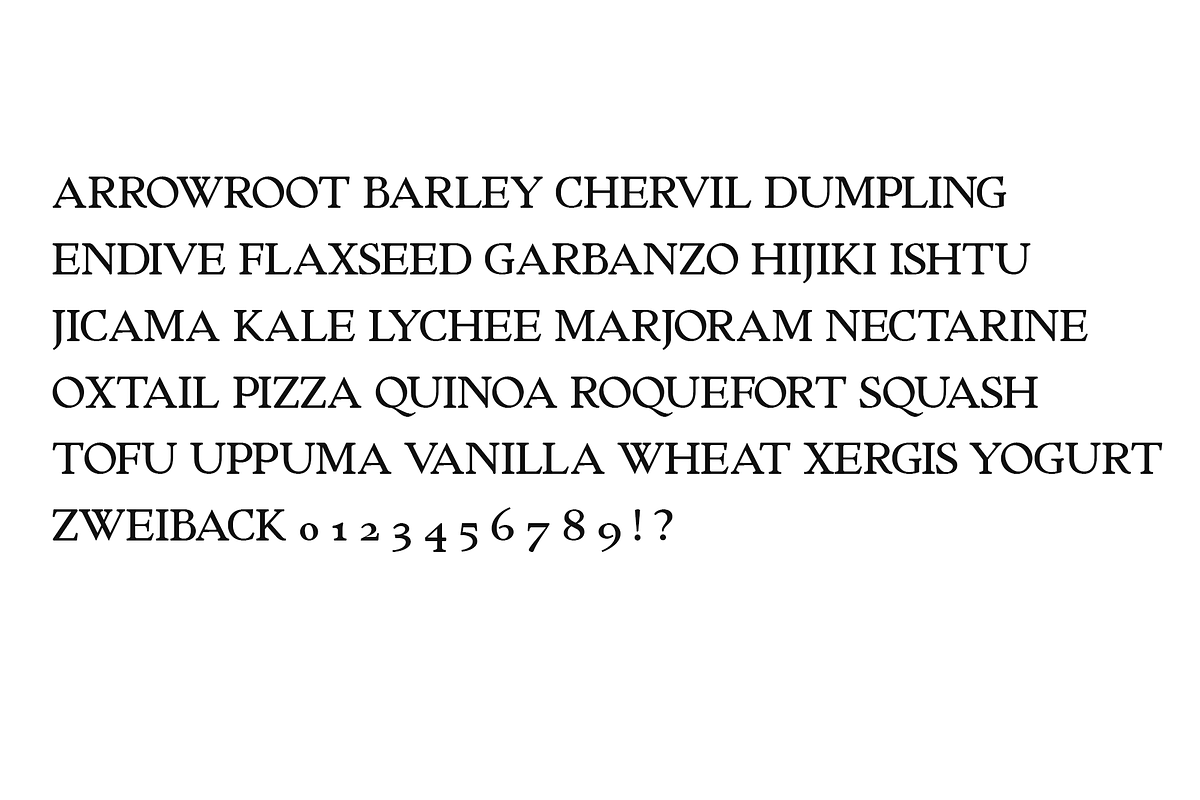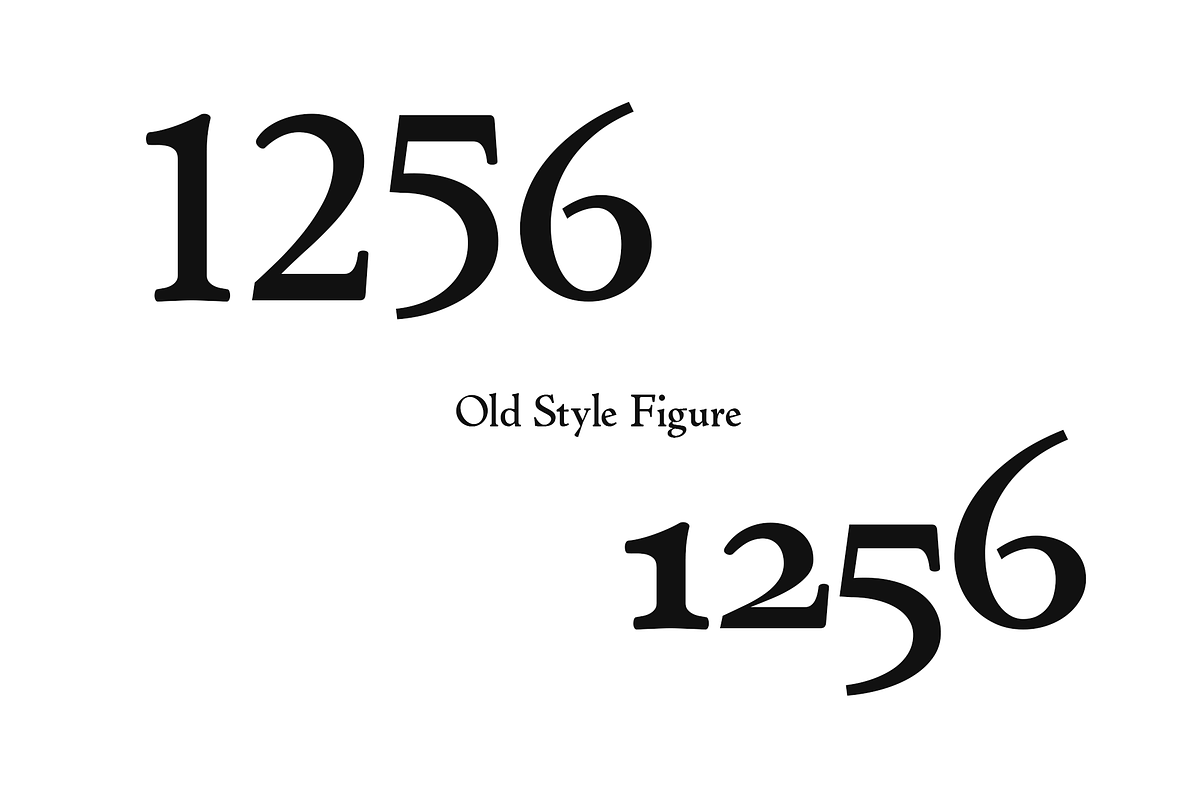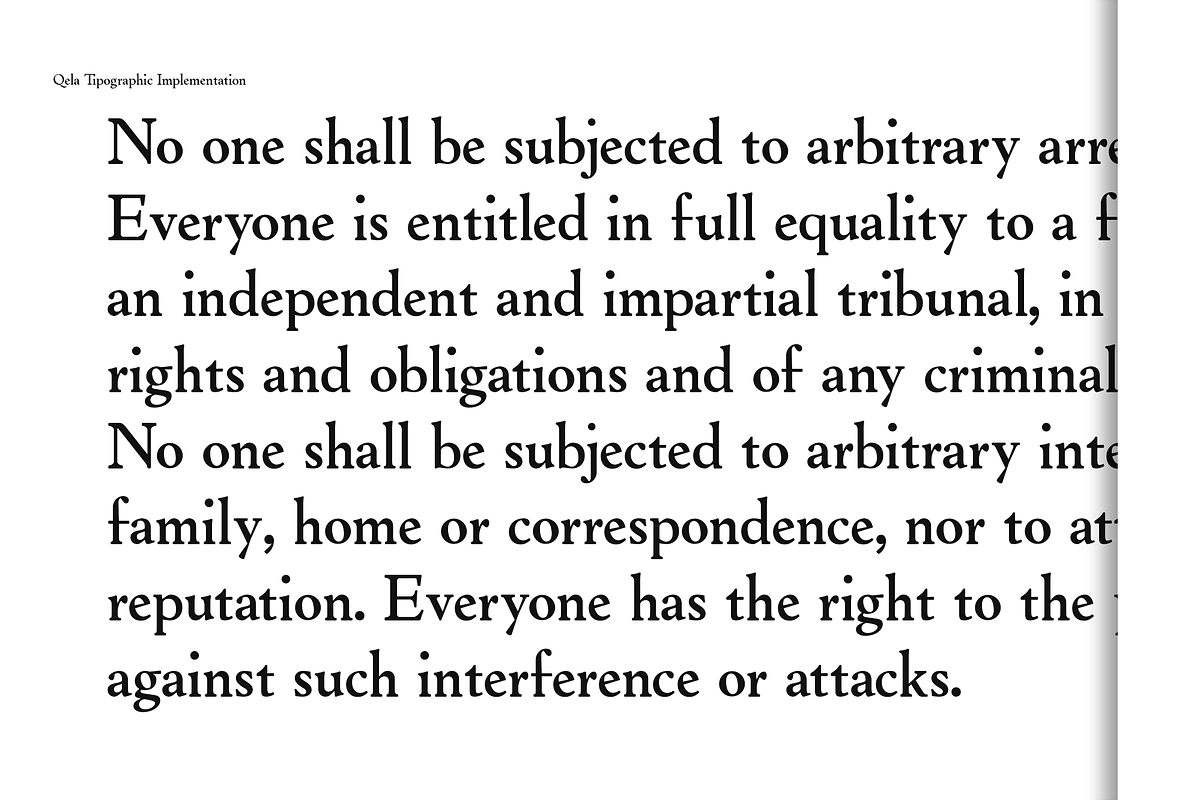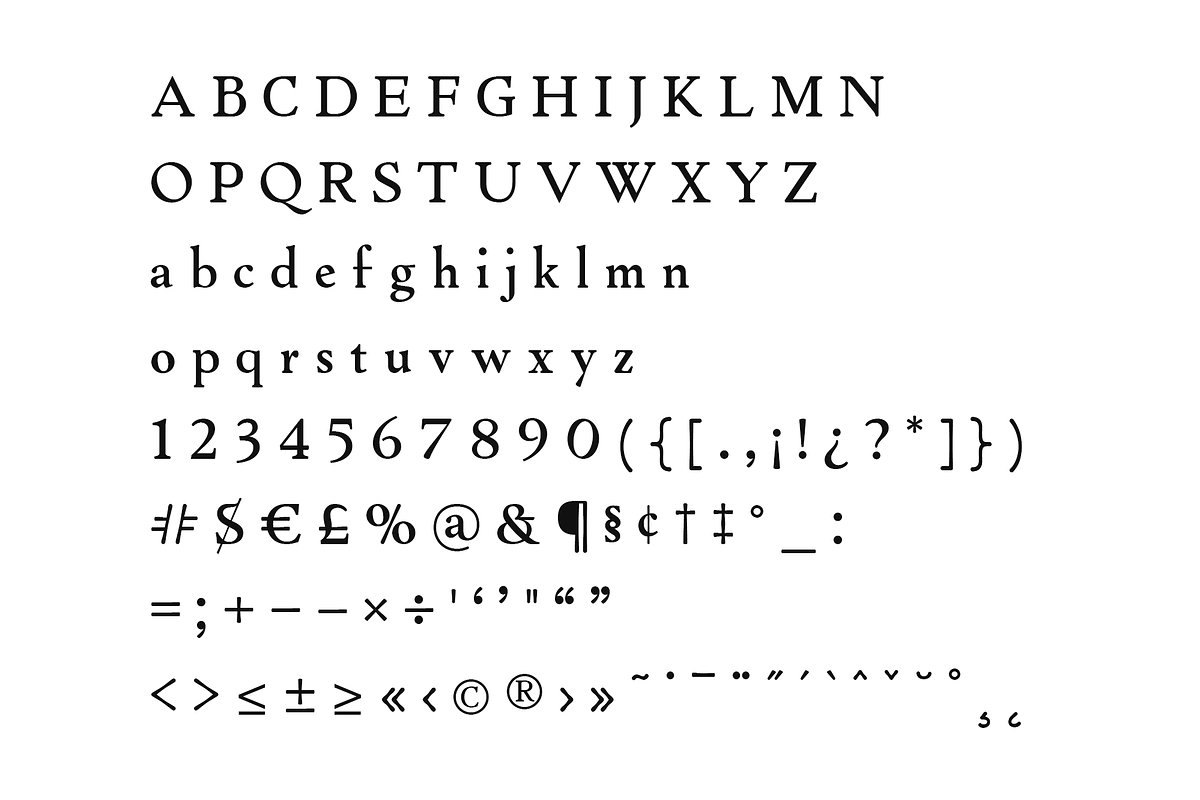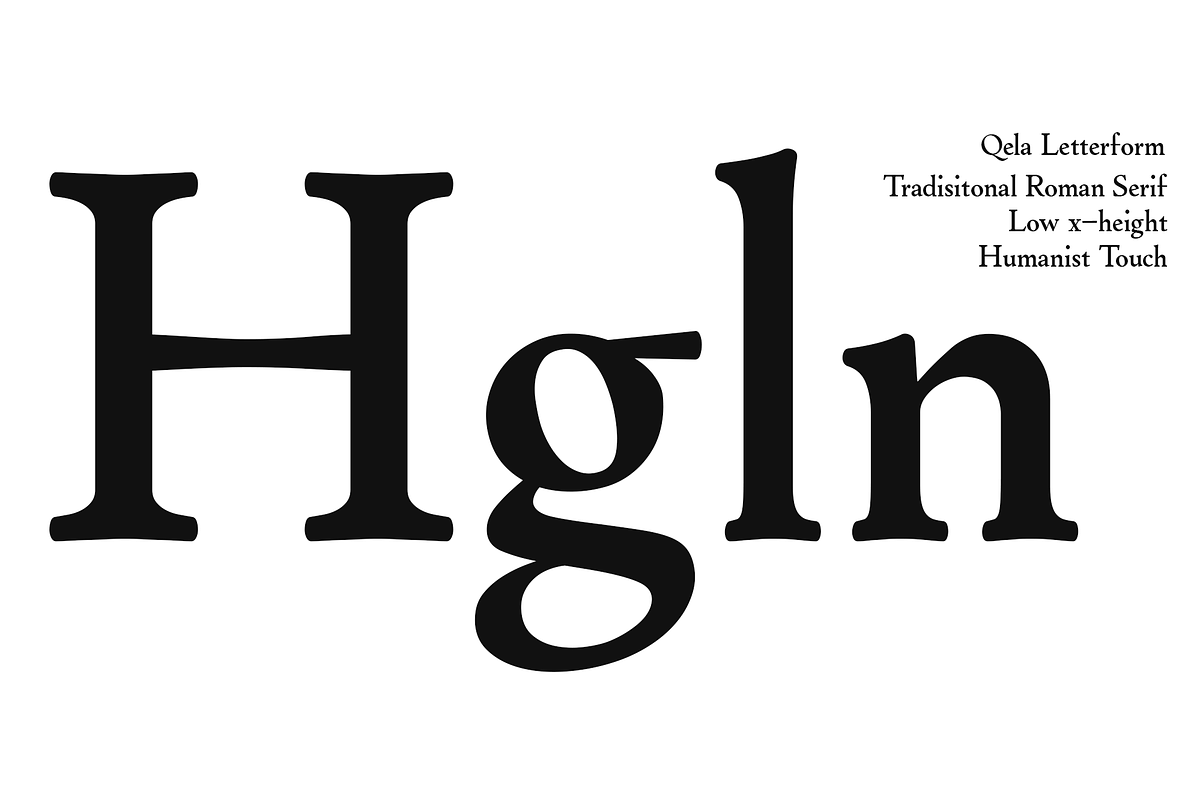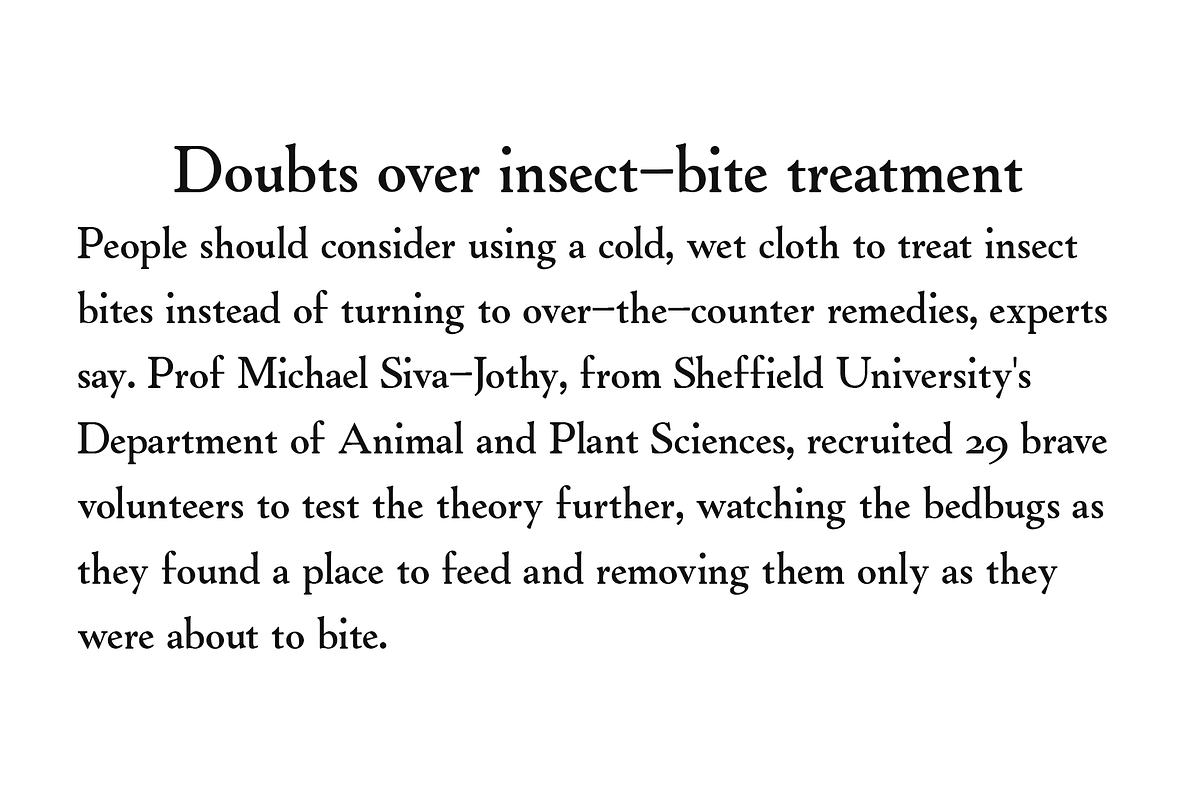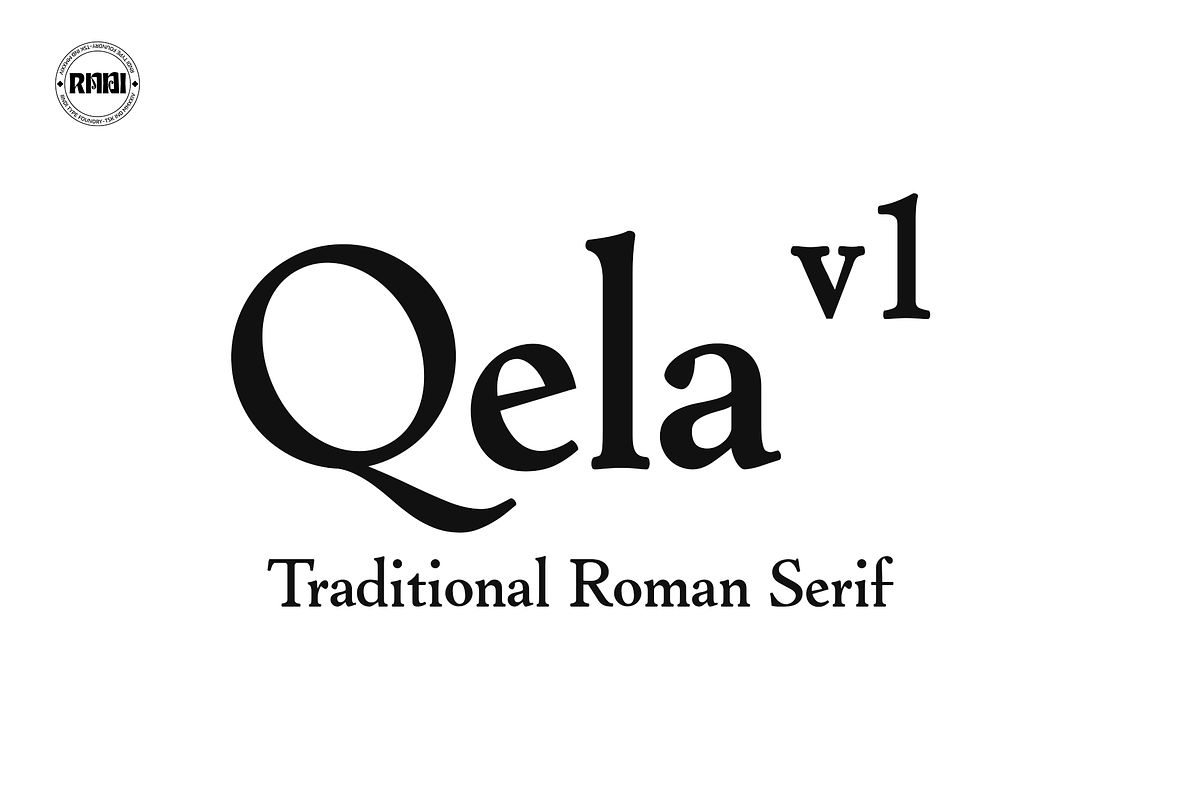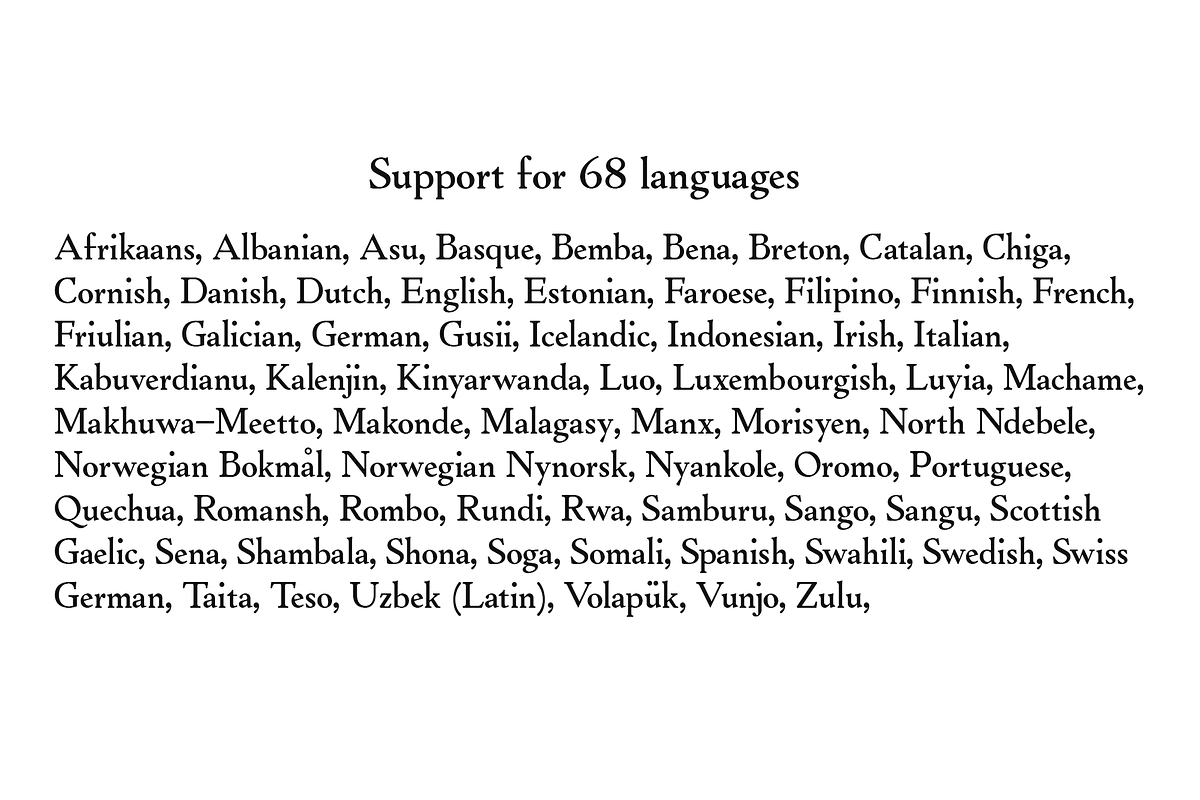
Qela v1
Qela v1 is a traditional Roman serif typeface that blends classical elegance with modern readability. Its humanist proportions and moderate contrast create a refined yet approachable character, while the sharp yet subtle serifs ensure clarity in long texts. Delicate details, such as soft terminal curves and old-style figures, bring a timeless European typographic spirit. Versatile in use, Qela v1 works beautifully for authoritative headlines as well as extended body text. With its balance of tradition and sophistication, Qela v1 is ideal for editorial design, academic publishing, classical literature, premium branding, or any project seeking an intellectual and distinguished atmosphere.